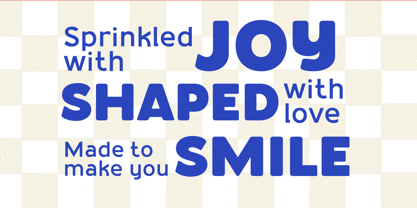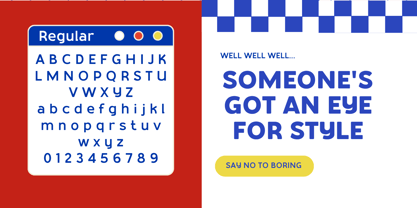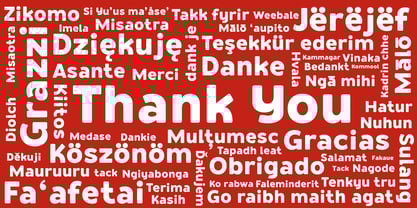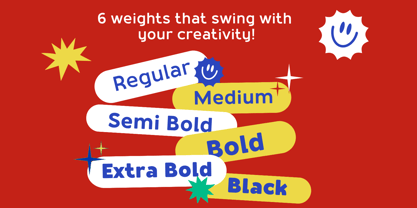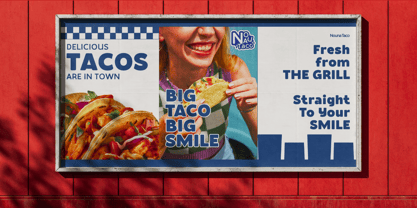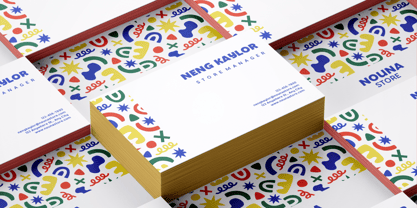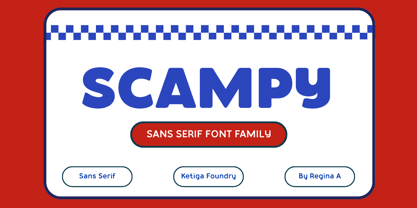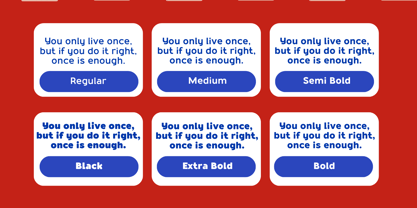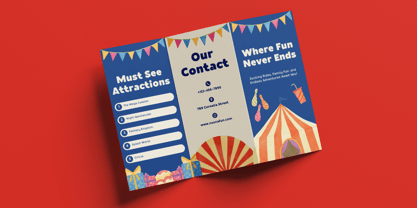
Scampy
by Ketiga Foundry
Scampy is a cheerful display font that radiates fun and friendliness. With its rounded edges, lively rhythm, and hand-drawn charm, Scampy brings a playful bounce to any design. Every letter feels warm and expressive, perfect for projects that want to smile back at you. From children’s books and packaging to branding, posters, and social media graphics, Scampy makes every word look joyful and approachable. It’s the kind of typeface that turns simple text into a happy visual moment. Whether you’re designing for kids, food brands, or creative campaigns, Scampy adds personality, softness, and a spark of imagination.